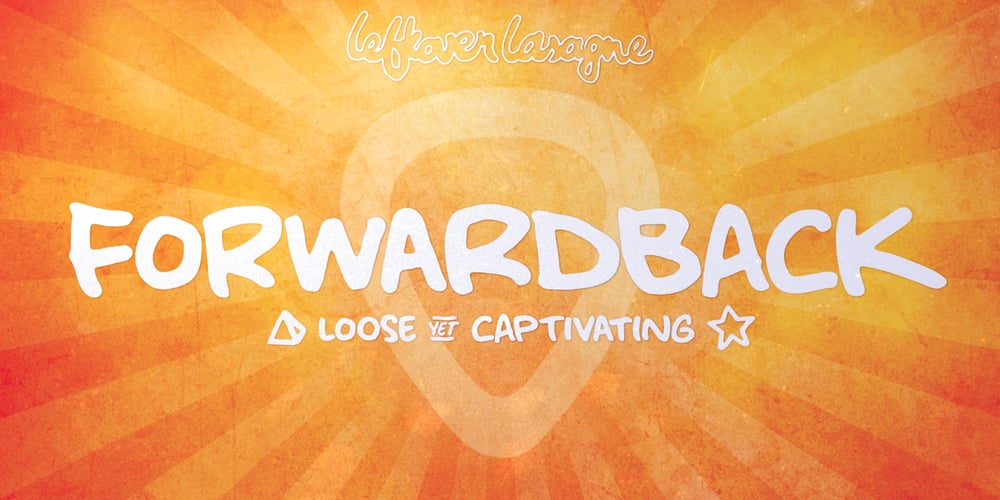
Forwardback LL Font Family was designed by Alex Volmer and published by Leftover Lasagne. Forwardback LL contains 1 styles and family package options. Forwardback is a clean and friendly typeface with a large compliment of European characters. Its round & bouncing letters impart a smooth handwritten feel. The font features auto-ligatures for duplicate letters, plus a hefty set of graphical elements & shapes which can be accessed by convenient keyboard shortcuts (a lowercase letter directly followed by a number from 0-9).